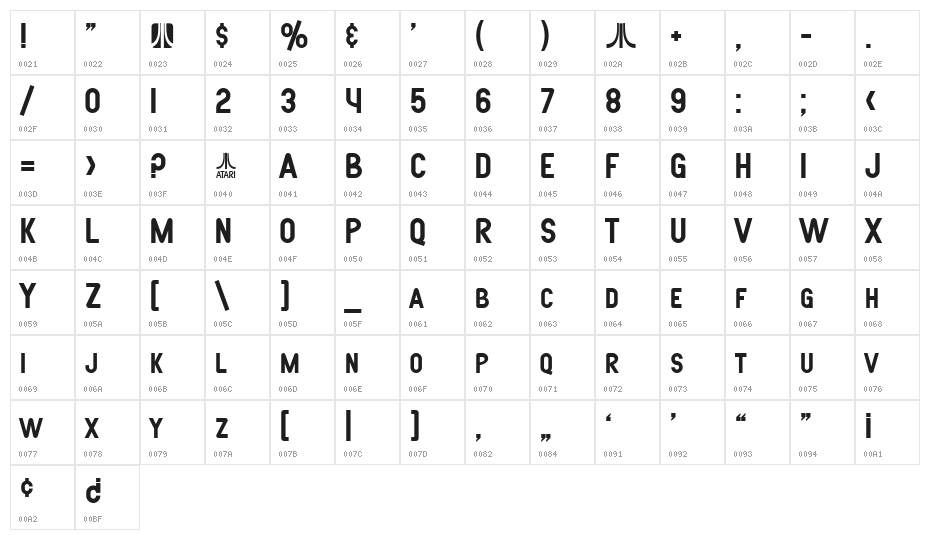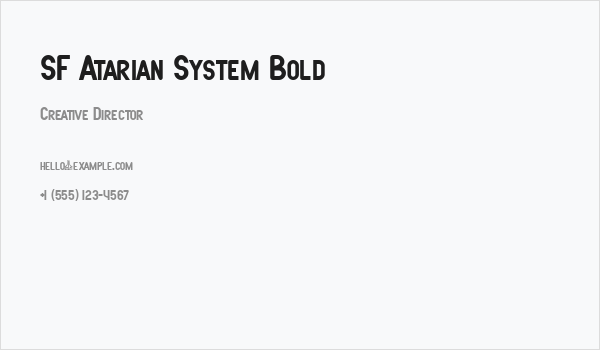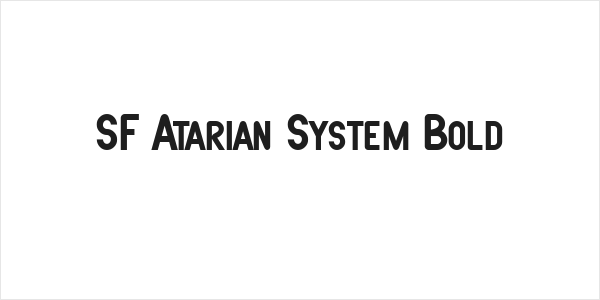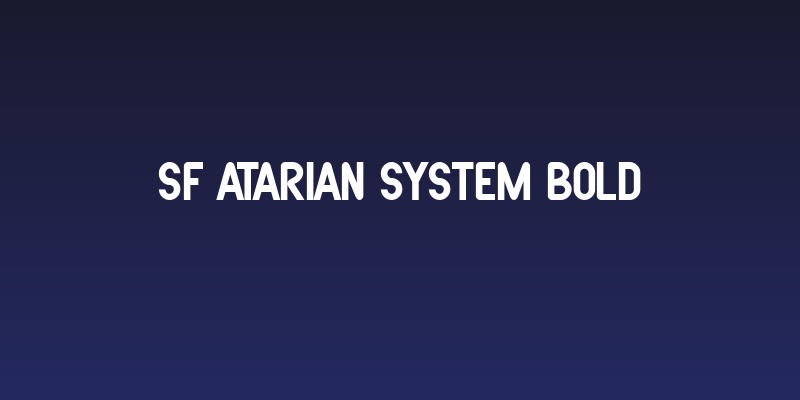
SF Atarian System Bold Font
SF Atarian System Bold Description
This font features a bold, geometric style with a strong presence. The characters are uniform and consistent, with a modern and clean aesthetic. The uppercase and lowercase letters maintain a similar width, creating a cohesive look. The numerals are distinct and easy to read, while the special characters add a unique touch with their angular design. This font is ideal for projects that require a bold statement and clear readability.
Proposed ProjectsIdeal for headlines, posters, branding, and digital interfaces.